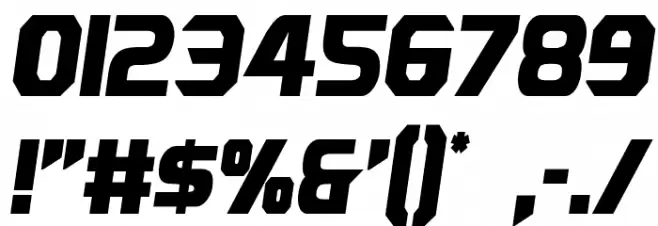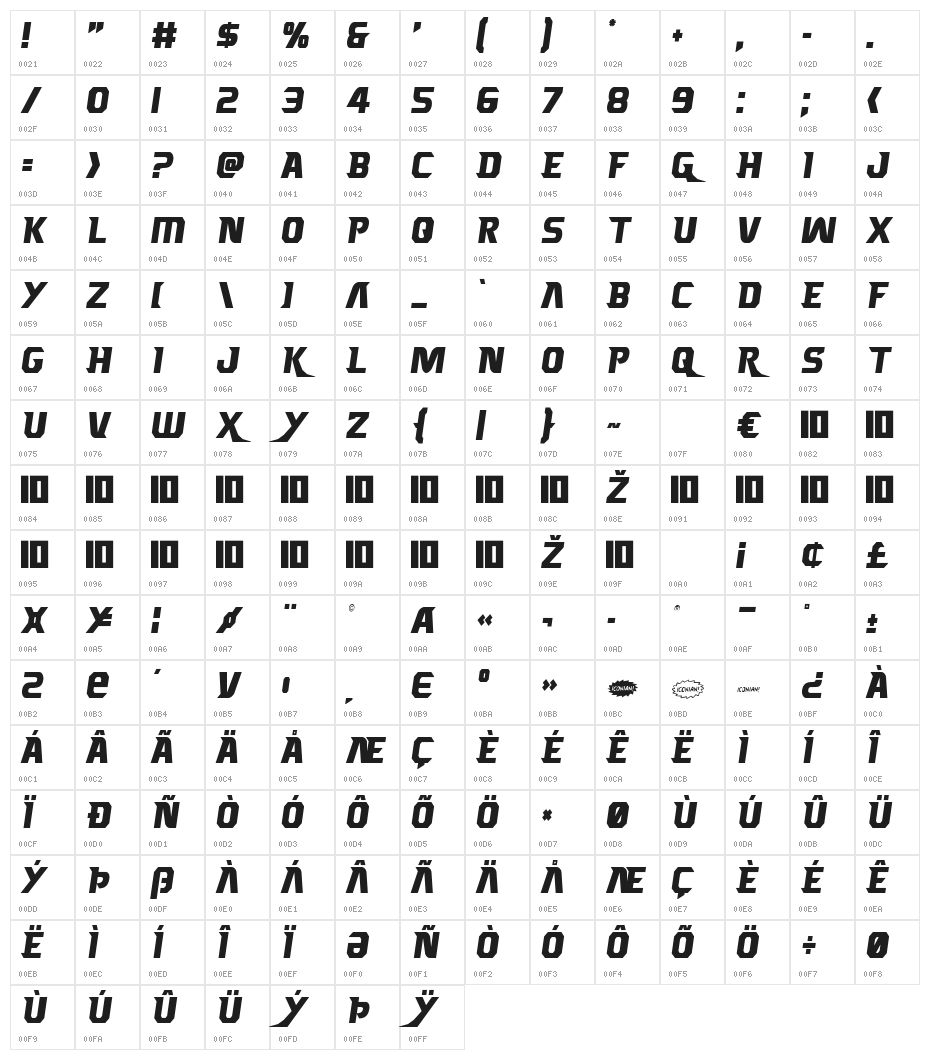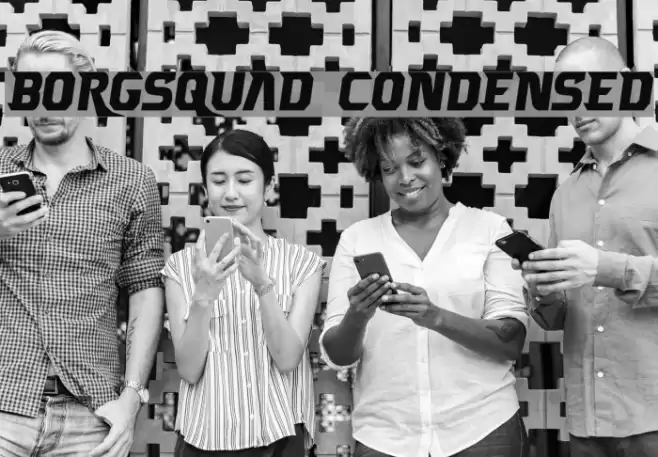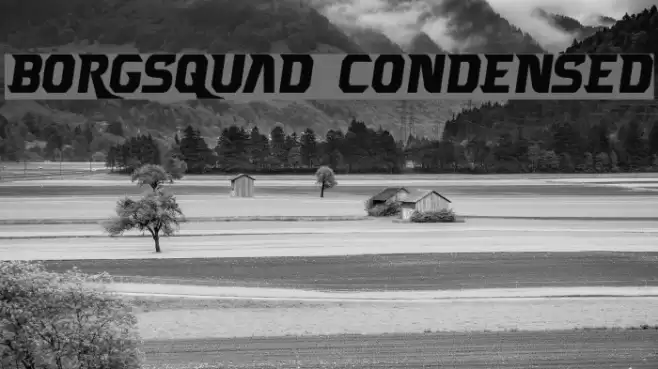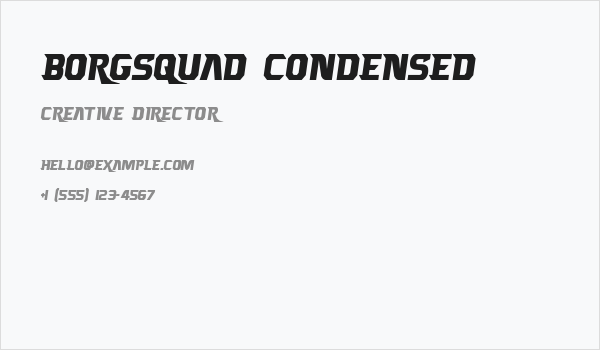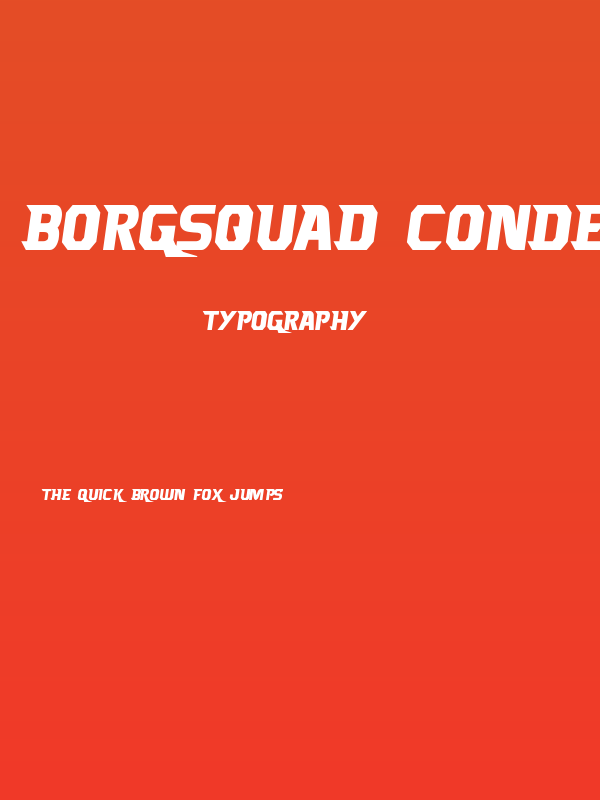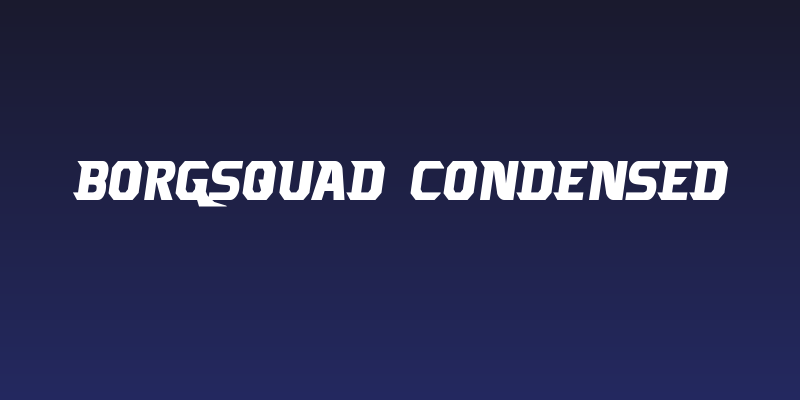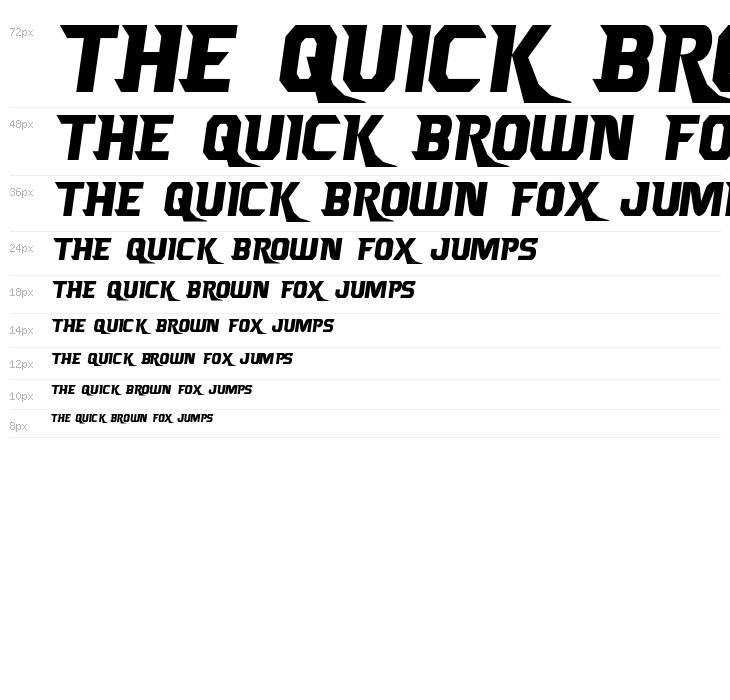
Borgsquad Condensed Font
Borgsquad Condensed Description
This font features a bold and futuristic design with sharp, angular edges and a condensed structure. The characters are tightly spaced, creating a compact and dynamic appearance. The uppercase letters exhibit a strong geometric influence, while the lowercase letters maintain a consistent style, enhancing readability. The numerals and special characters follow the same angular theme, ensuring uniformity across the typeface. This font's unique style makes it suitable for projects that require a modern and edgy look.
| Proposed Projects | Ideal for sci-fi themed designs, video game titles, tech branding, and modern posters. |